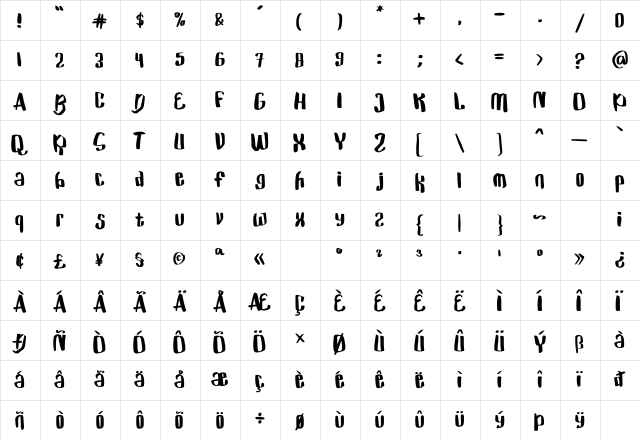
Hi Panda Regular
| Foundry | Hans Co |
| Designer | Burhan Afif |
Design Context for Hi Panda Typeface
Hi Panda is a composed and adaptable typeface that performs quietly and consistently across a wide range of design contexts.